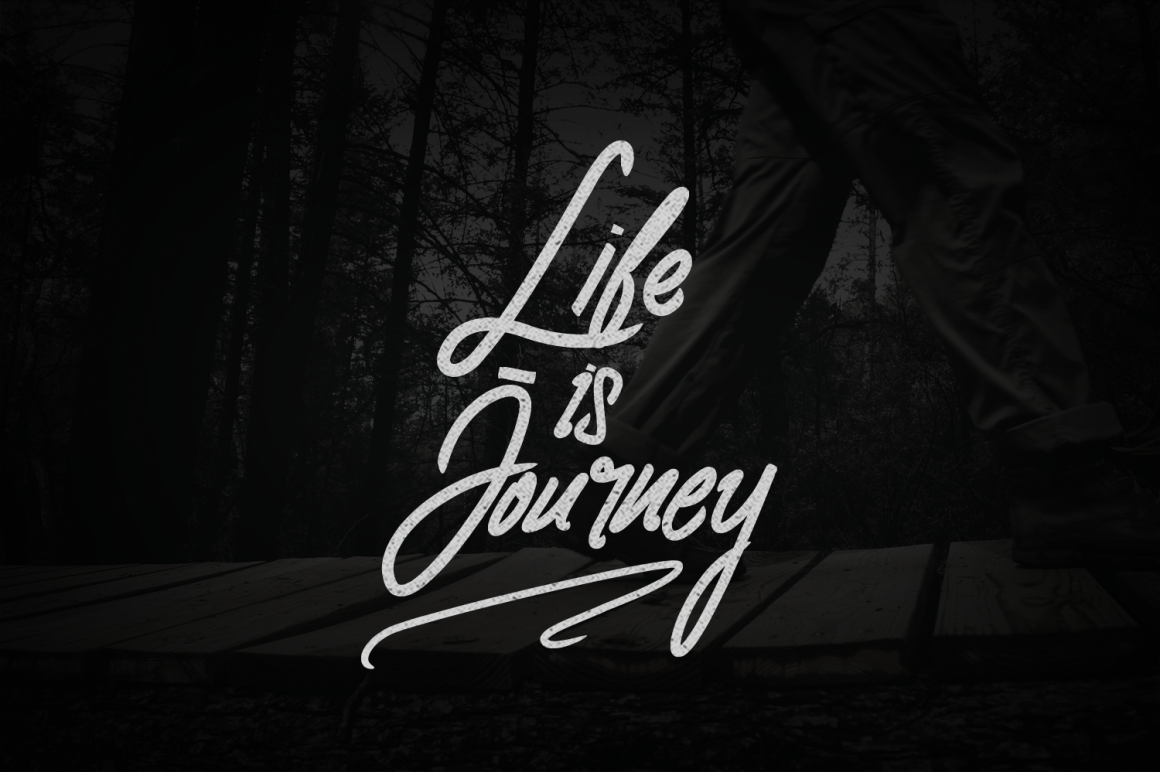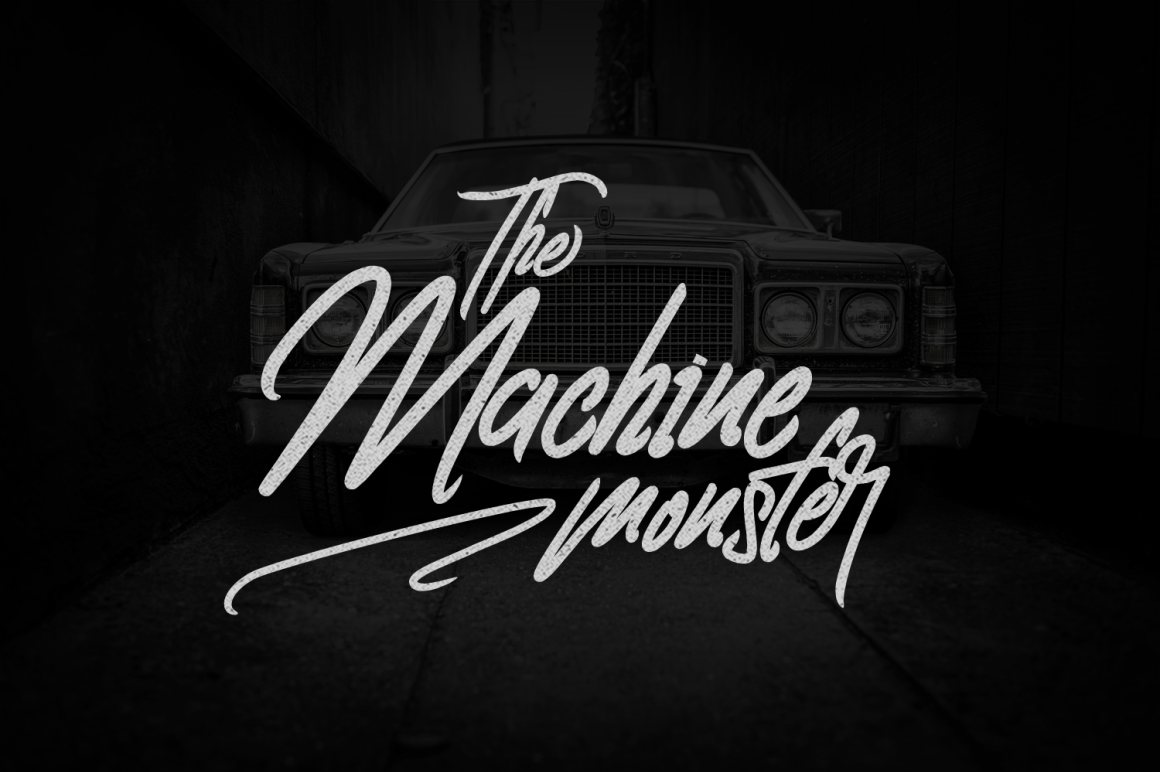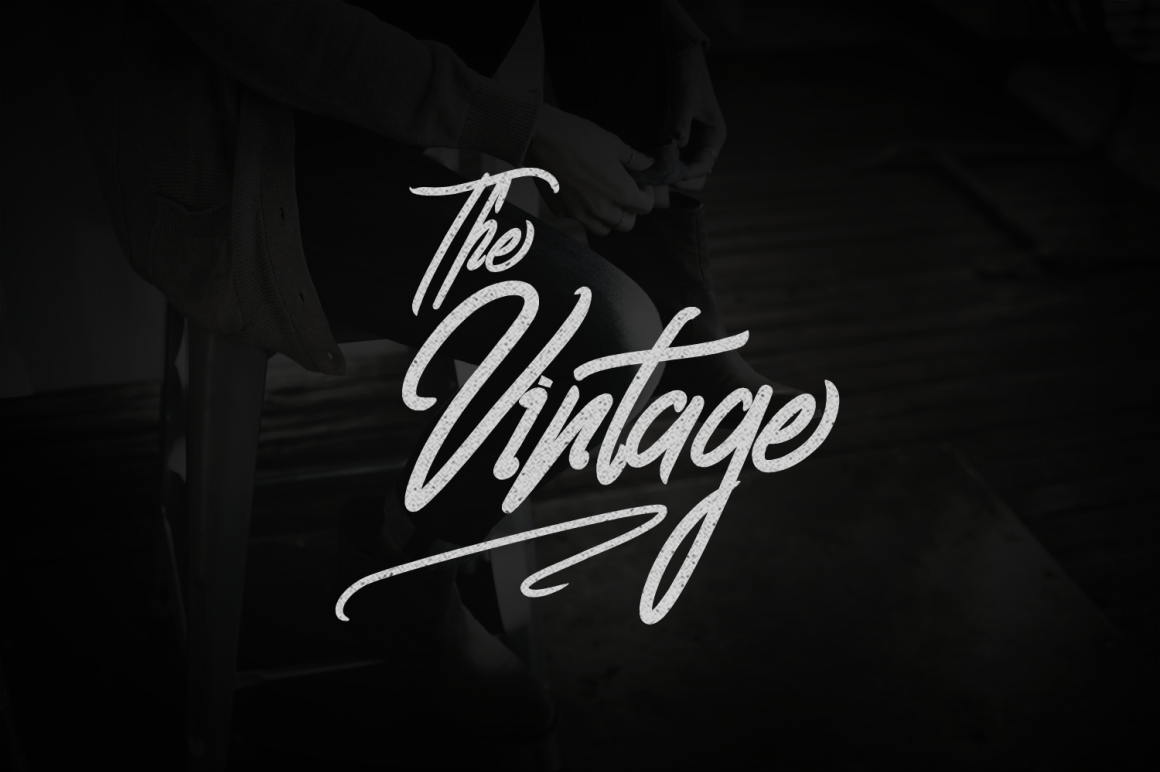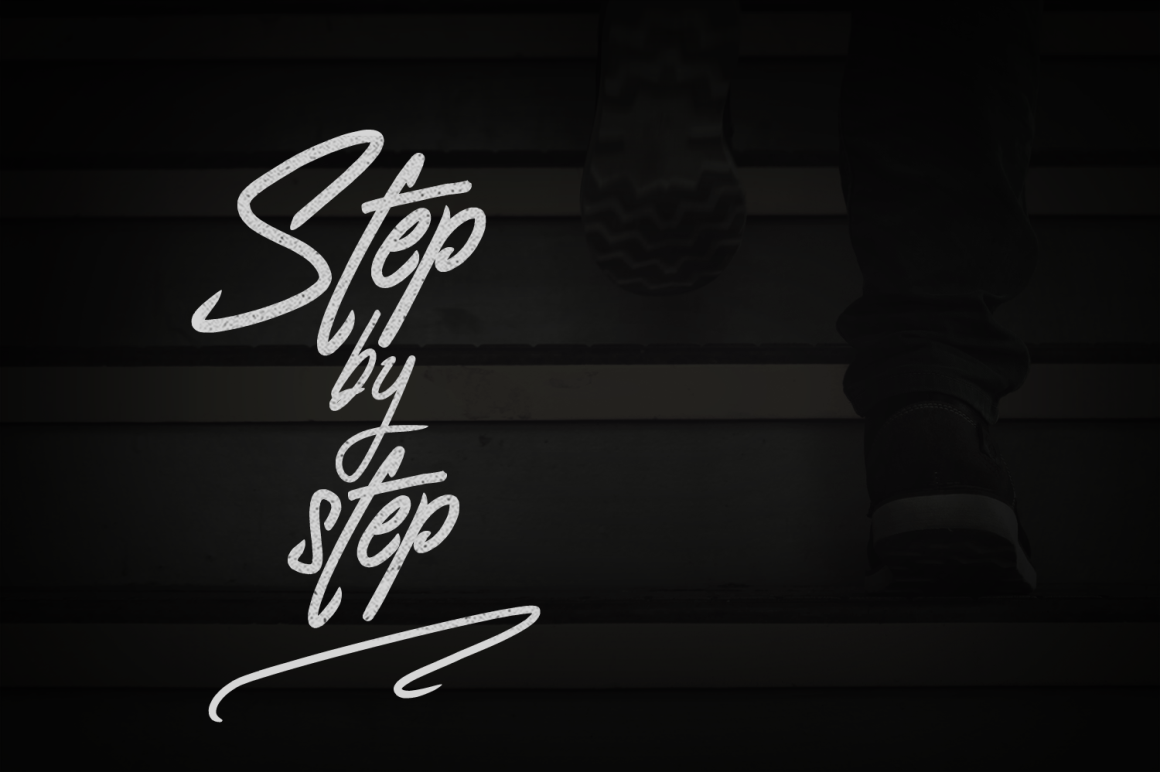
Introduction to Clovvo Font
Clovvo is a stunning and dynamic handwritten font, perfect for use in a wide range of styles and project types.
This font looks mesmerizing in print, but is clean enough for impactful digital designs as well .
Key Features of Clovvo Font